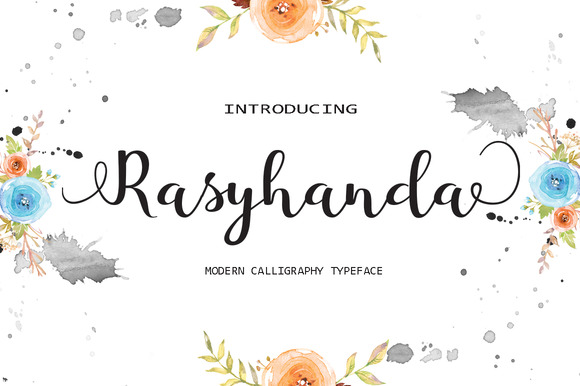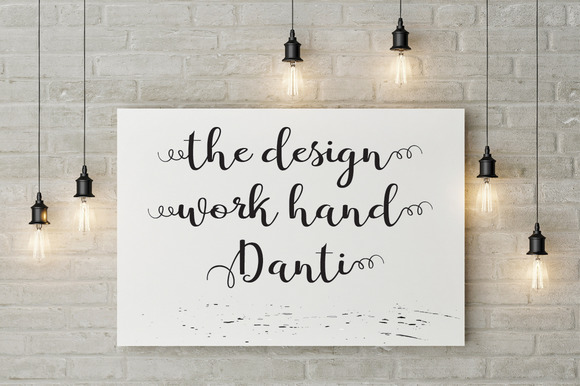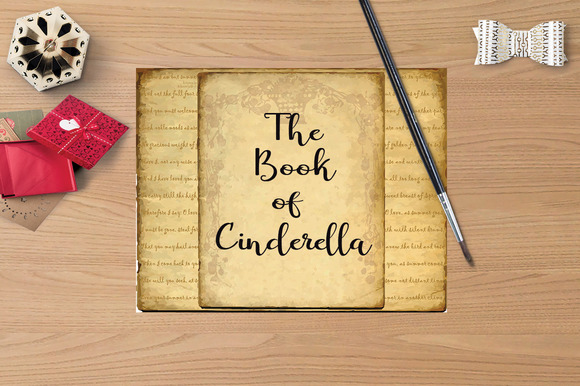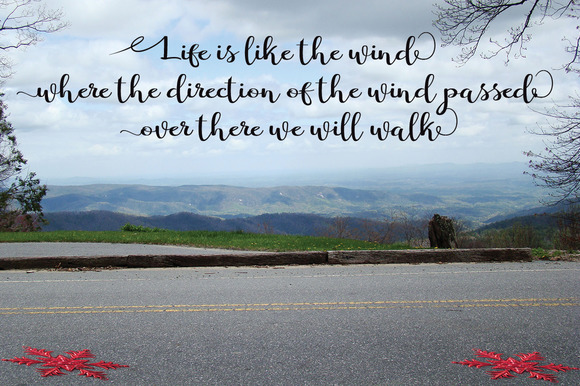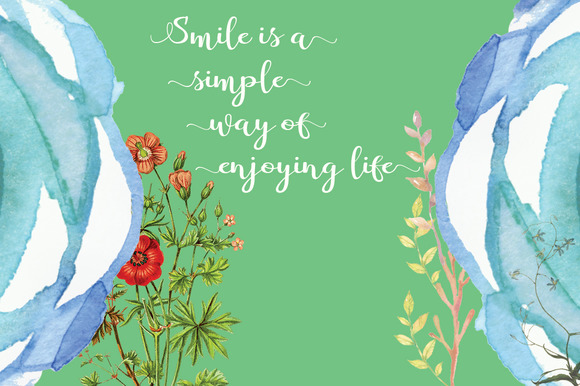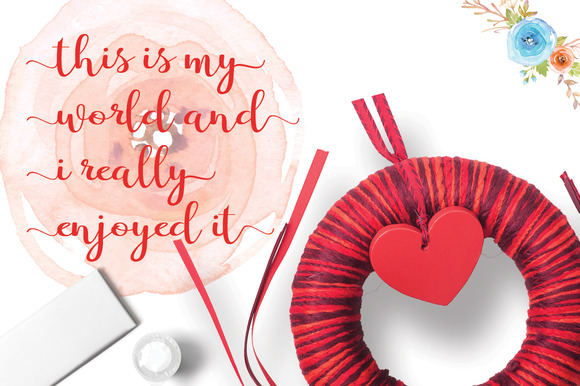
Rasyhanda Font
About Rasyhanda Font
Rasyhanda is a handwritten, modern typeface and has a unique form of calligraphy and a very natural writing style.
It can be used for various purposes such as headings, logos, badges, postcards, invitations, book covers, websites, and every other design you want to give a modern feeling!